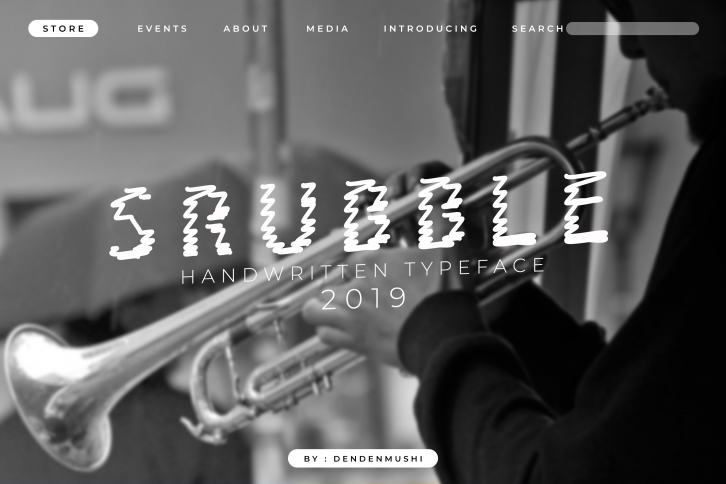
SRUBBLE is a great font that was designed by Denden Mushi Inc. Imagine the amount of combinations you can create using this font! The archive is 7.76 MB and it was released on May 19, 2019. SRUBBLE looks beautiful on wedding invitations, greeting cards, logos, posters, labels, t-shirt designs, logos, business cards and is perfect for use in ink or watercolor works, fashion, magazines, packaging and food menus, children's books and more!